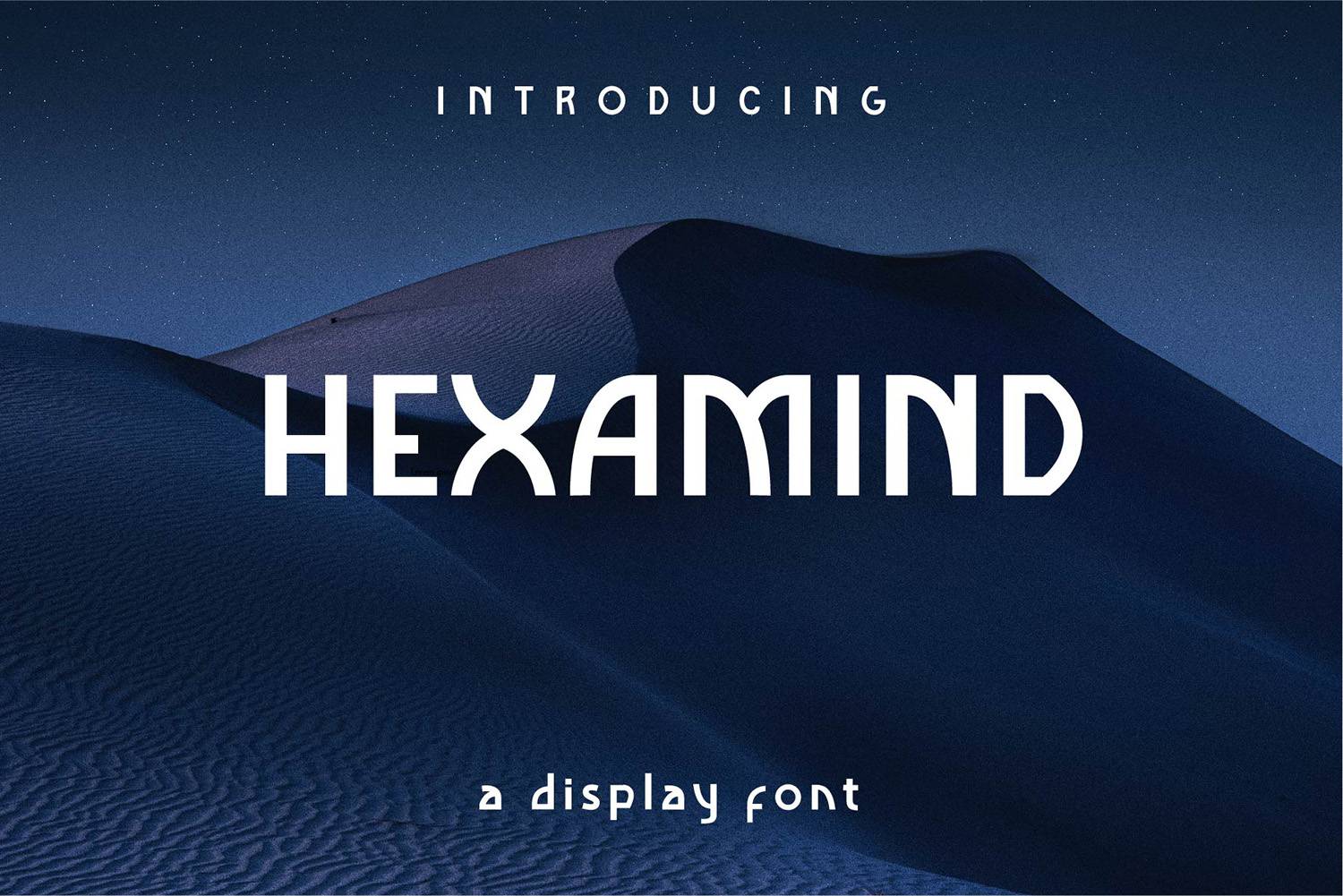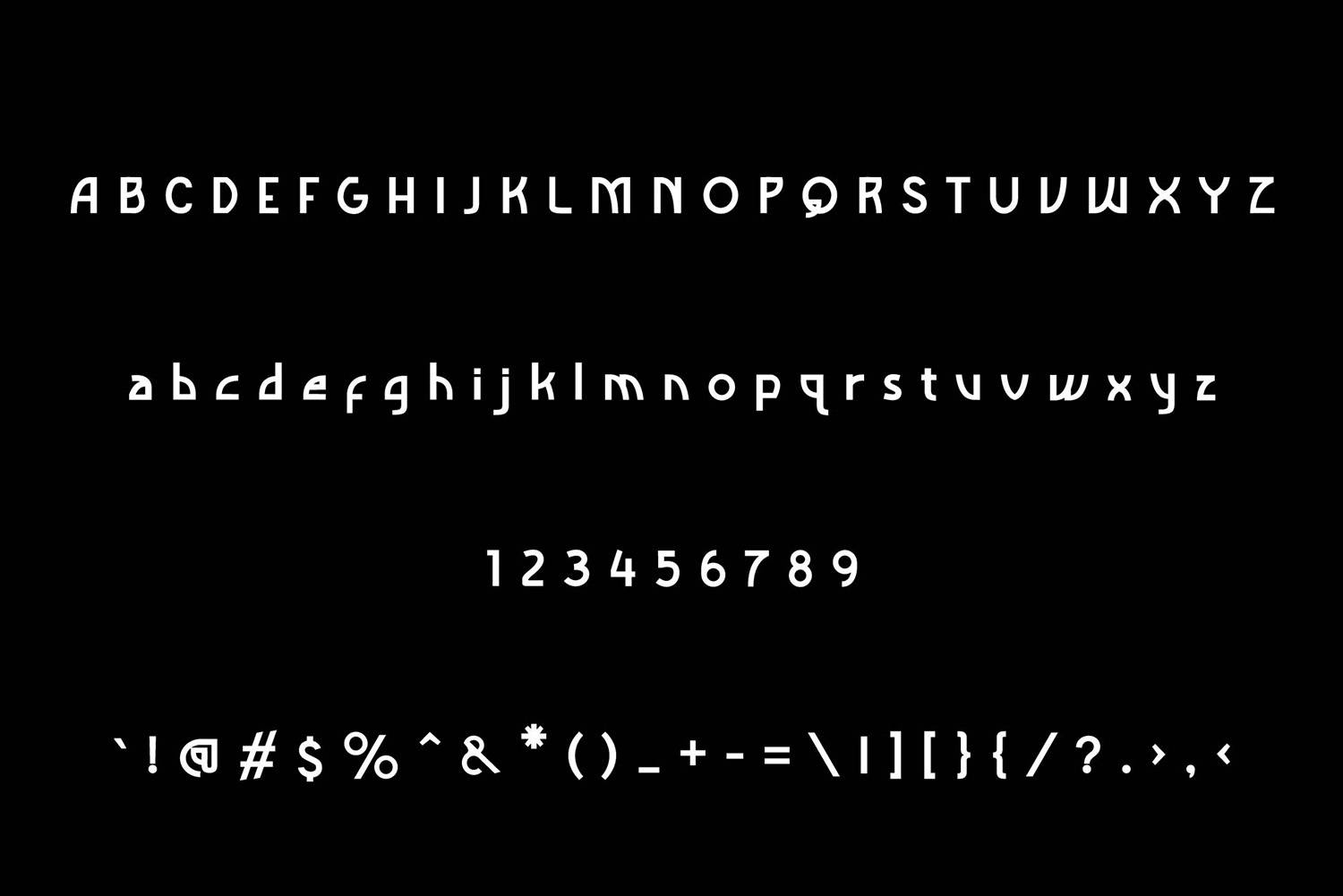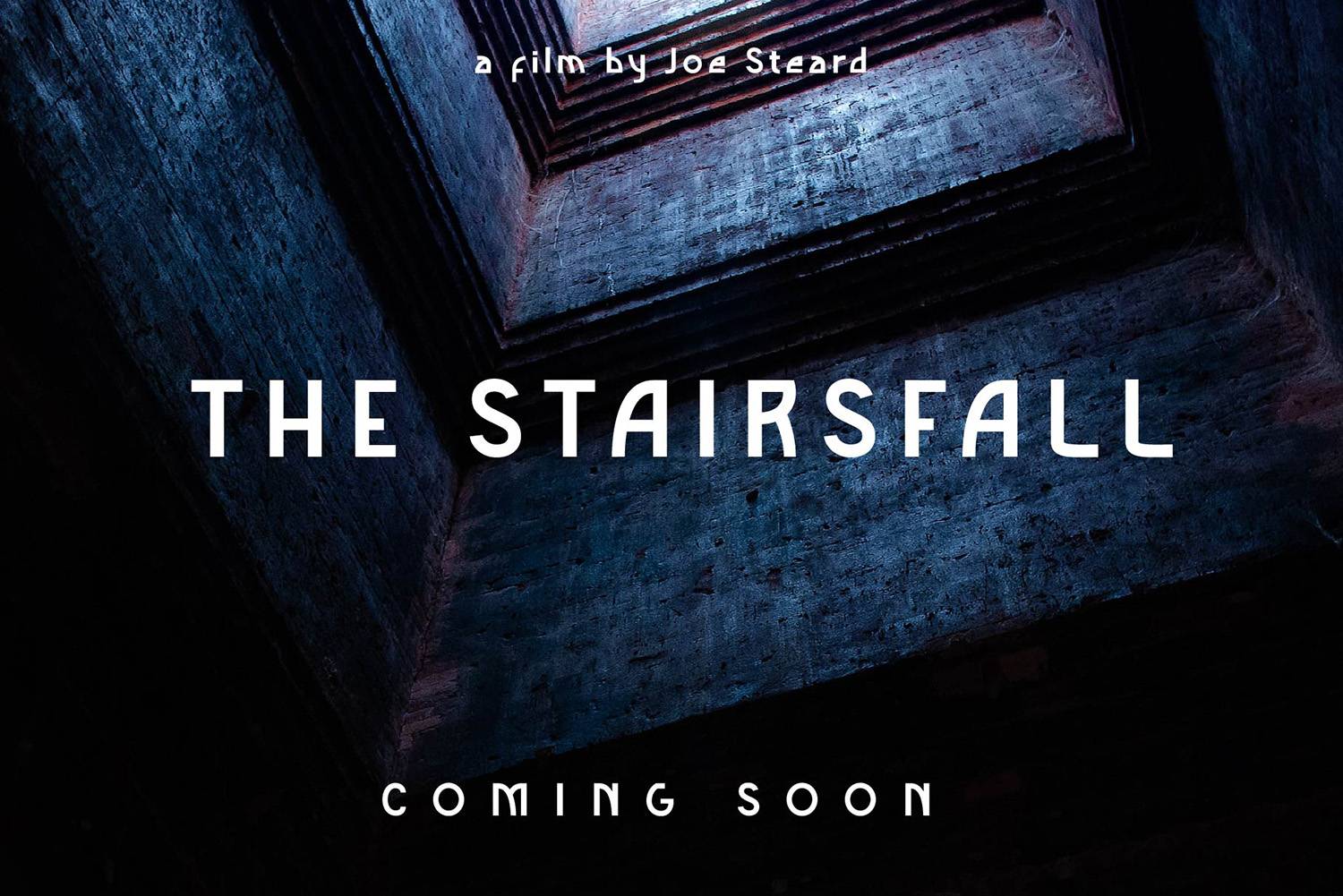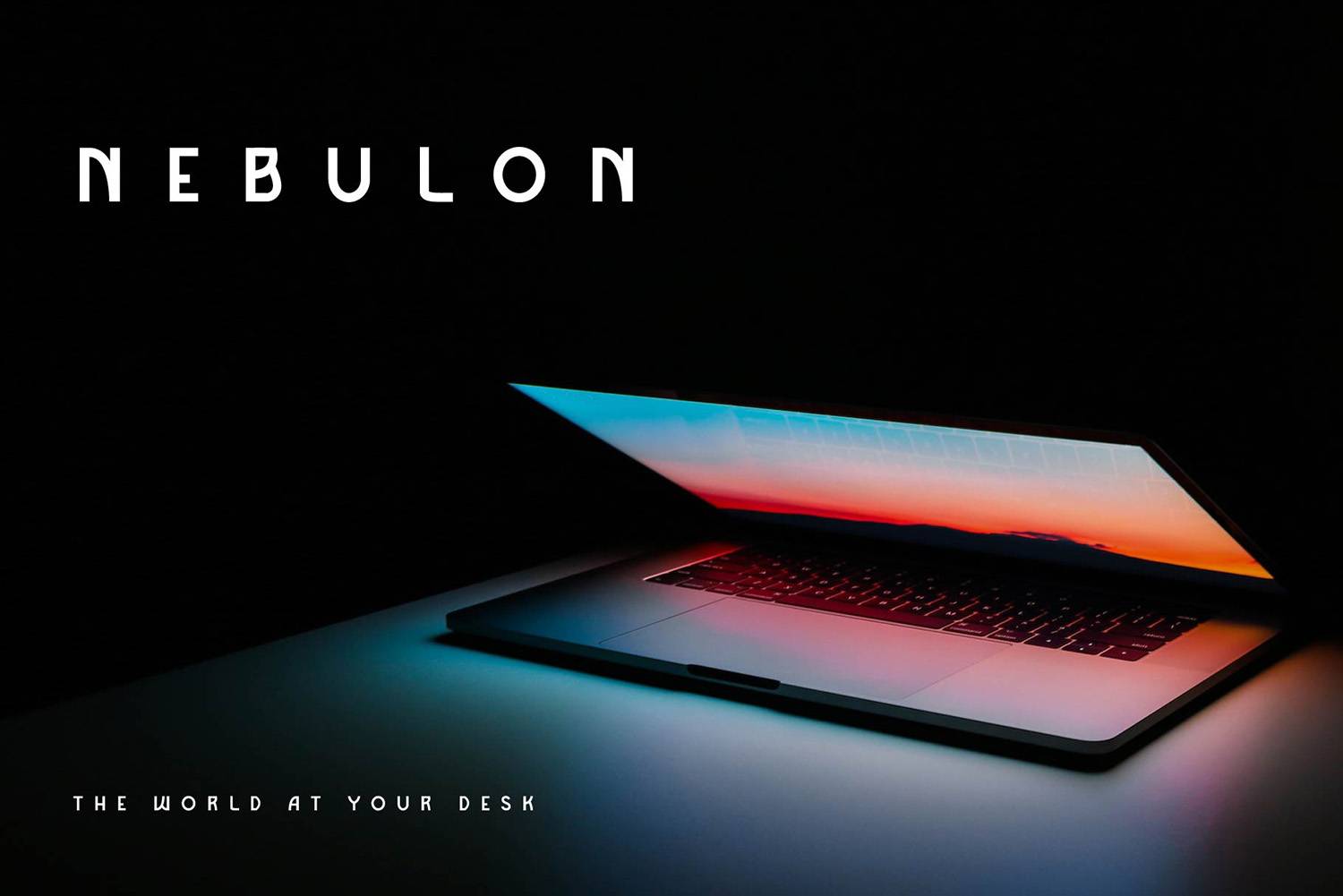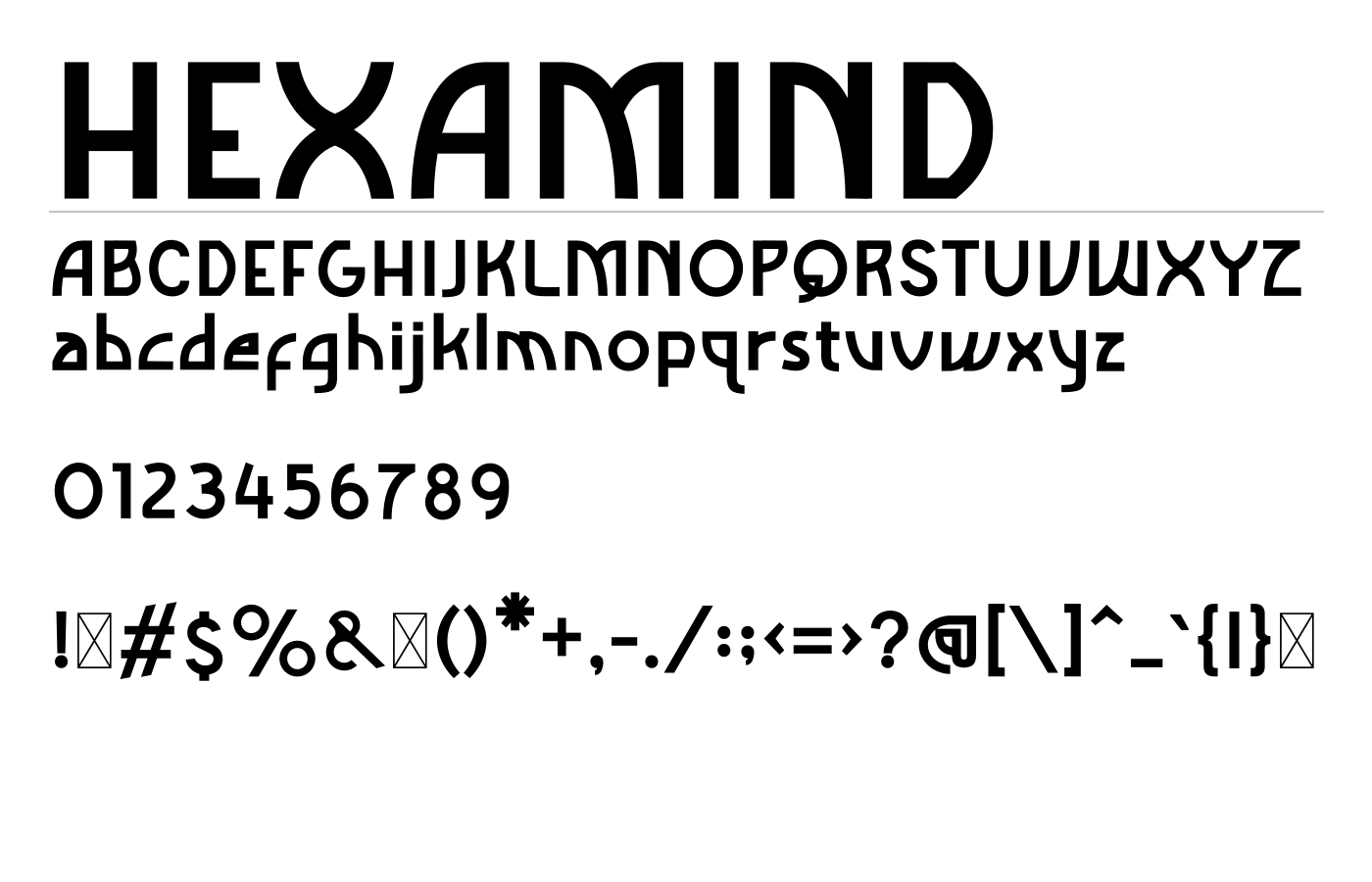
Hexamind is a distinctive sans serif font characterized by its geometric shapes and bold, regular weight that lend it a modern, slightly futuristic vibe. Its unique letterforms, such as the curved stems in the "R" and "a," combined with tight, compact spacing, create a dynamic yet clean appearance that works well for headlines, logos, and branding that seek a contemporary and confident look. This font's strong personality makes it ideal for designs that want to stand out with a stylish and innovative edge.
Hexamind Font
About Hexamind Font